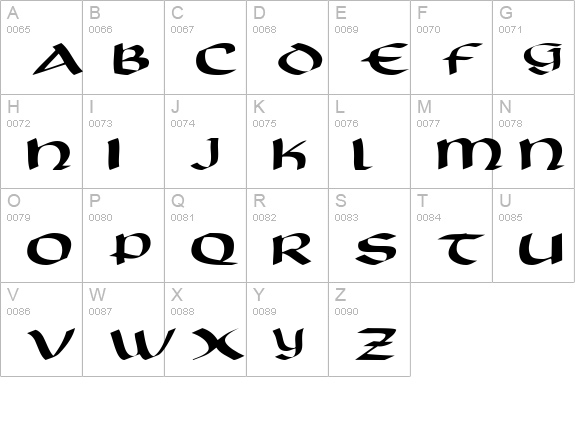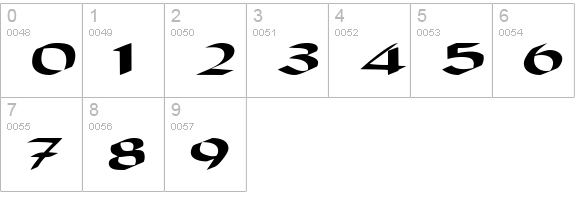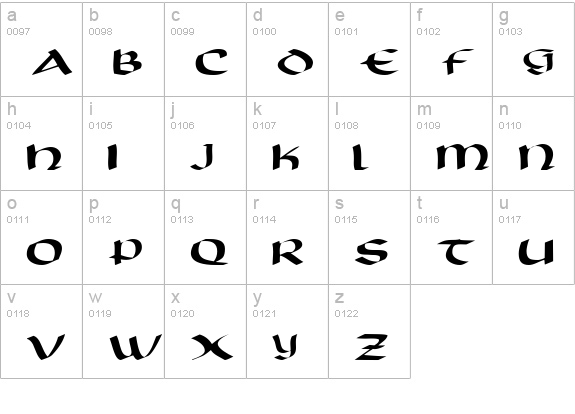
BarbourSCapsSSK Font Details
BarbourSCapsSSK is a unique and elegant font that exudes a sense of sophistication and class. With its stylish serif design and distinctive uppercase letters, this font is perfect for adding a touch of refinement to your projects. Whether you're creating invitations, logos, or any other creative work, BarbourSCapsSSK will surely make a statement. The best part? BarbourSCapsSSK is available for free download at FontsMarket.com, making it easily accessible for all your design needs. Don't miss out on the opportunity to elevate your designs with this exquisite font that combines timeless style with modern appeal. Upgrade your typography game today with BarbourSCapsSSK.